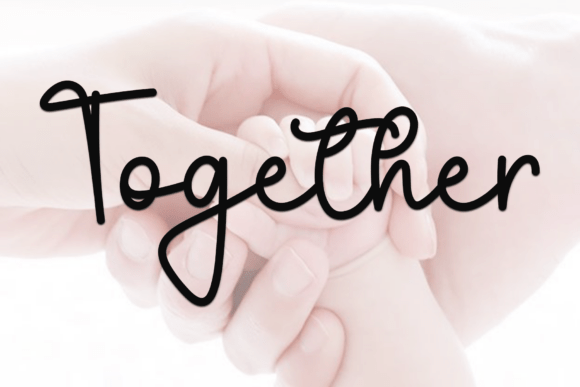
Boy Hiking Font: Elevate Your Designs with a Modern Script Font
The Boy Hiking font is a modern script font that embodies the spirit of casual adventure and youthful energy. With its clean, handwritten style, this font is perfect for outdoor-themed designs, travel blogs, nature-inspired branding, and personal journaling. In this article, we’ll explore the features and benefits of the Boy Hiking font and how it can add a personal, uplifting touch to your projects.
What is Boy Hiking Font?
Boy Hiking is a modern script font that boasts a clean, handwritten style. Its smooth, flowing lines and relaxed rhythm give it a natural, effortless look that’s perfect for designs that require a personal touch. The font’s approachable style and natural charm make it an excellent choice for outdoor-themed designs, travel blogs, and nature-inspired branding.
Key Features of Boy Hiking Font
- Clean and Handwritten Style: The Boy Hiking font features a clean, handwritten style that’s perfect for designs that require a personal touch.
- Smooth and Flowing Lines: The font’s smooth, flowing lines and relaxed rhythm give it a natural, effortless look.
- PUA Encoded: The Boy Hiking font is PUA encoded, which means you can access all of the amazing glyphs and ligatures with ease.
- Approachable Look: The font’s approachable style and natural charm make it an excellent choice for outdoor-themed designs, travel blogs, and nature-inspired branding.
Use Cases for Boy Hiking Font
The Boy Hiking font is versatile and can be used in a variety of projects, including:
- Outdoor-Themed Designs: The font’s natural, effortless look makes it perfect for outdoor-themed designs, such as logos, brochures, and posters.
- Travel Blogs: The Boy Hiking font is an excellent choice for travel blogs, as it adds a personal, adventurous touch to your content.
- Nature-Inspired Branding: The font’s natural charm and approachable style make it an excellent choice for nature-inspired branding, such as packaging and labels.
- Personal Journaling: The Boy Hiking font is also perfect for personal journaling, as it adds a personal, uplifting touch to your journal entries.
Benefits of Using Boy Hiking Font
The Boy Hiking font offers several benefits, including:
- Unique and Creative Look: The font’s clean, handwritten style and smooth, flowing lines give it a unique and creative look that sets it apart from other fonts.
- Easy to Read: The Boy Hiking font is easy to read, making it perfect for body text and headlines.
- Versatile: The font is versatile and can be used in a variety of projects, from digital layouts to printed materials.
- PUA Encoded: The font’s PUA encoding makes it easy to access all of the amazing glyphs and ligatures.
The Boy Hiking font is a modern script font that embodies the spirit of casual adventure and youthful energy. With its clean, handwritten style, smooth, flowing lines, and relaxed rhythm, it’s perfect for outdoor-themed designs, travel blogs, nature-inspired branding, and personal journaling. The font’s approachable look and natural charm make it an excellent choice for designs that require a personal touch. Whether you’re designing a logo, brochure, or journal entry, the Boy Hiking font is sure to add a personal, uplifting touch to your project.
- What is the Boy Hiking font?: The Boy Hiking font is a modern script font that boasts a clean, handwritten style.
- Is the Boy Hiking font PUA encoded?: Yes, the Boy Hiking font is PUA encoded, which means you can access all of the amazing glyphs and ligatures with ease.
- What are the use cases for the Boy Hiking font?: The Boy Hiking font can be used in outdoor-themed designs, travel blogs, nature-inspired branding, and personal journaling.
- Is the Boy Hiking font easy to read?: Yes, the Boy Hiking font is easy to read, making it perfect for body text and headlines.